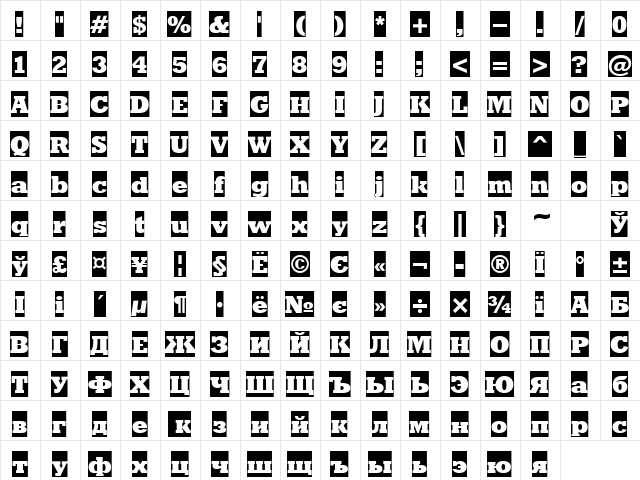
RodeoExtraBoldCameo Normal Font Preview
RodeoExtraBoldCameo Normal
RodeoExtraBoldCameo Normal Font Details
Design Context for RodeoExtraBoldCameo Typeface
RodeoExtraBoldCameo offers clean, dependable letterforms without strong stylistic allegiance, making it a practical choice for designers who need flexibility. Its bold stroke weight gives it real presence on the page.